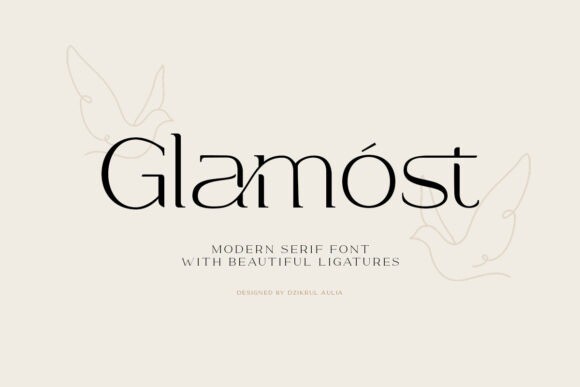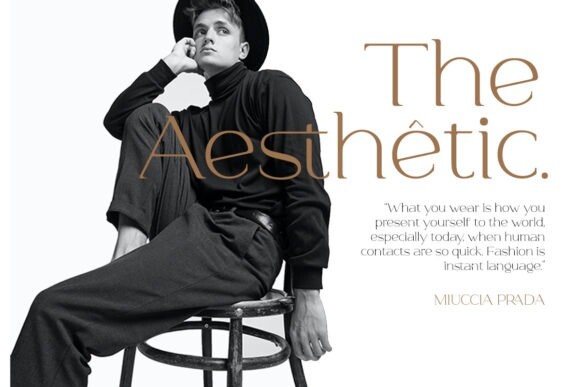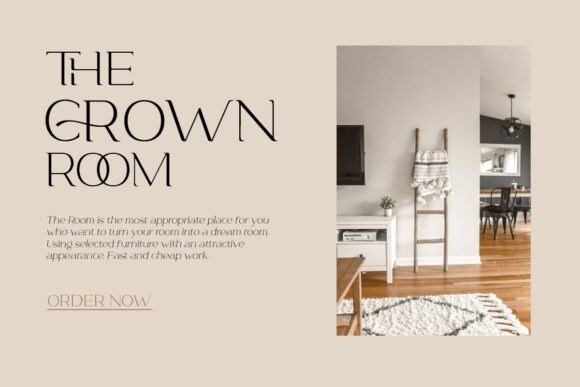
Glamost Font
Glamost is a minimalist and elegant serif font with many ligatures that will make your projects stand out. You can use this font for any purpose, such as branding identity, logo, magazine, quotes, and more